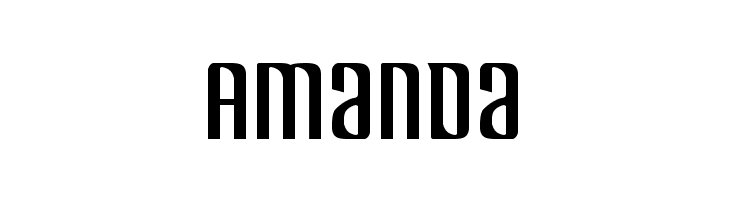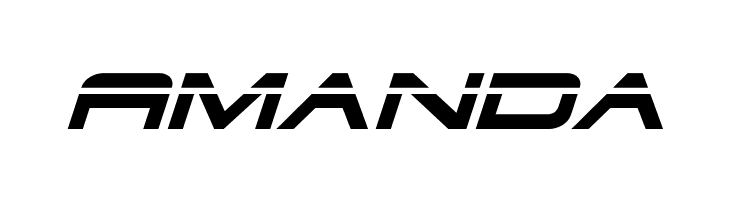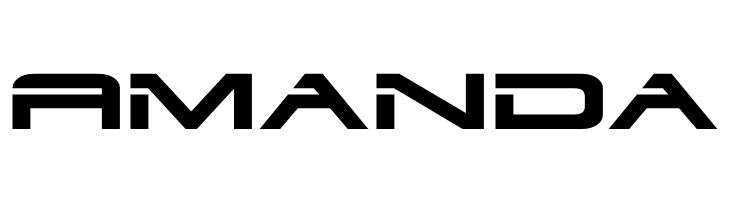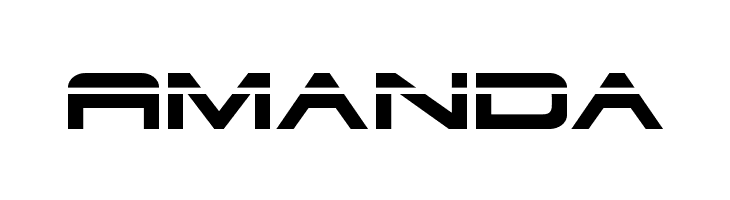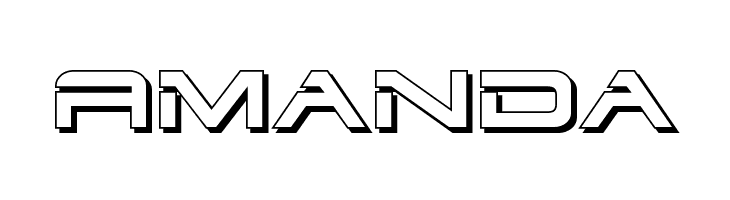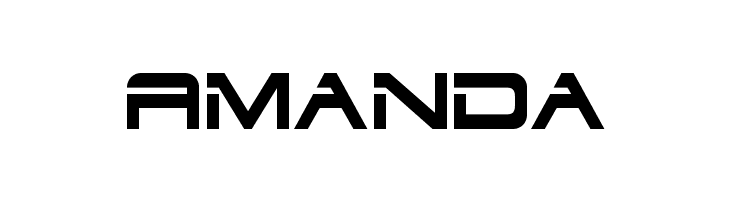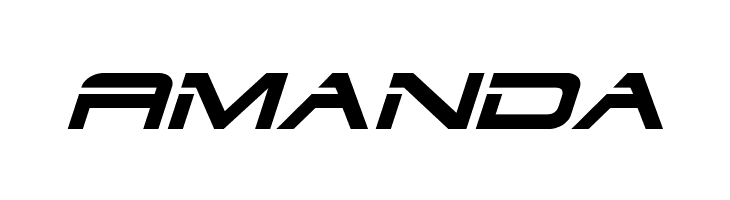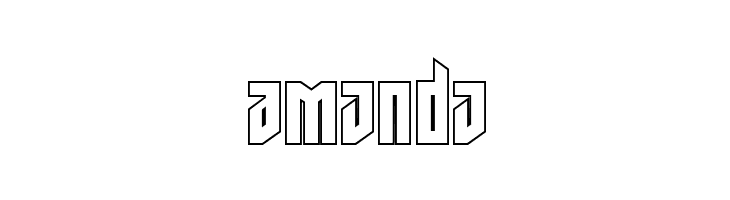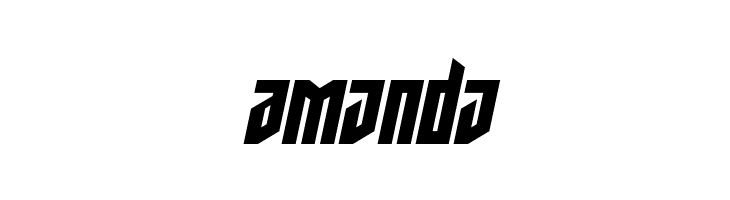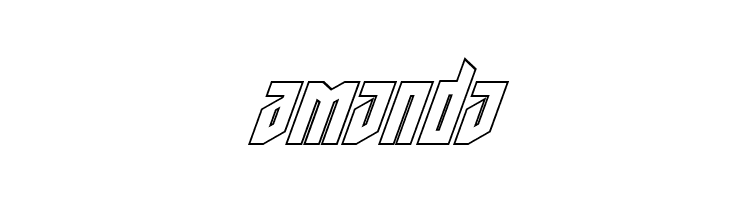
A bold, angular font with a left-leaning slant and a dynamic, aggressive style.
A bold, angular outline font with a modern gothic flair.
A bold, angular outline font with an italic slant and sharp, edgy design.
A bold, angular, and slanted font with a futuristic and aggressive style.
A bold, festive font with a snowy, decorative style.
A bold, expressive handwritten font with fluid, dynamic strokes.
A playful, rounded font with a hand-drawn appearance.
A dynamic handwritten font with fluid, expressive strokes.
A bold, ornate blackletter font with gothic influences.
An elegant script font with flowing, cursive strokes and decorative flourishes.
A playful, casual handwritten font with smooth, flowing lines and varying stroke widths.
A bold, modern font with tall, narrow characters and a geometric influence.
A bold, cursive font with elegant, flowing script and strong visual impact.
A bold, geometric font with rounded edges and a modern, futuristic style.
A playful, bold font with rounded, thick strokes and a whimsical touch.
A playful, hand-drawn script font with dynamic and fluid strokes.
A playful, hand-drawn font with rounded characters and a friendly feel.
A playful, hand-drawn font with bold, wavy characters.
A playful, handwritten-style font with a bold, italicized appearance.
A playful, bold font with rounded, thick strokes and a whimsical touch.
A playful, rounded font with a whimsical, handwritten style.
A bold, geometric font with a futuristic and strong aesthetic.
A whimsical, hand-drawn font with a playful and artistic style.
A bold, futuristic font with a 3D effect and geometric design.
A futuristic, geometric font with bold, condensed characters and a tech-inspired design.
A futuristic, geometric font with bold, expanded characters and a modern aesthetic.
A sleek, italic font with a futuristic and dynamic design.
A futuristic, stencil-like font with bold, angular characters.
A futuristic, italic font with bold, angular lines and a dynamic style.
A bold, playful font with exaggerated curves and angles, perfect for dynamic designs.
A playful handwritten font with fluid strokes and a casual style.
A bold, brush-style font with a distressed texture and dynamic appearance.
A distressed, grunge-style font with a bold, textured appearance.
A bold, decorative font with rounded, thick characters.